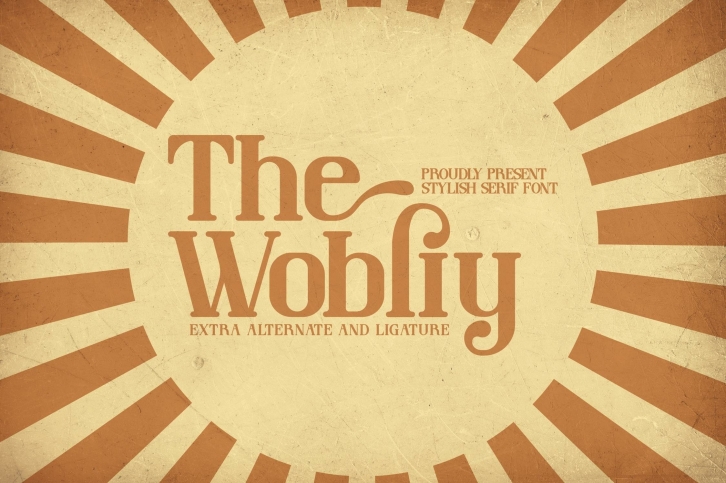
The Wobliy is a trendy and unique font with an authentic style. It was designed by Pricilia Design and it's a great choice for creative people who need such a font. It was released on September 10, 2022 and the file size is 4.92 MB. The Wobliy will add an organic vibe to any design idea!